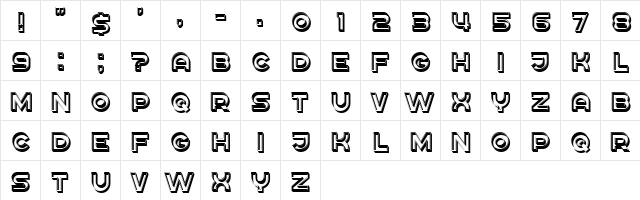
Rickrack 3D Regular
Design Context for Rickrack 3D Typeface
Rickrack 3D is a composed and adaptable typeface that performs quietly and consistently across a wide range of design contexts.